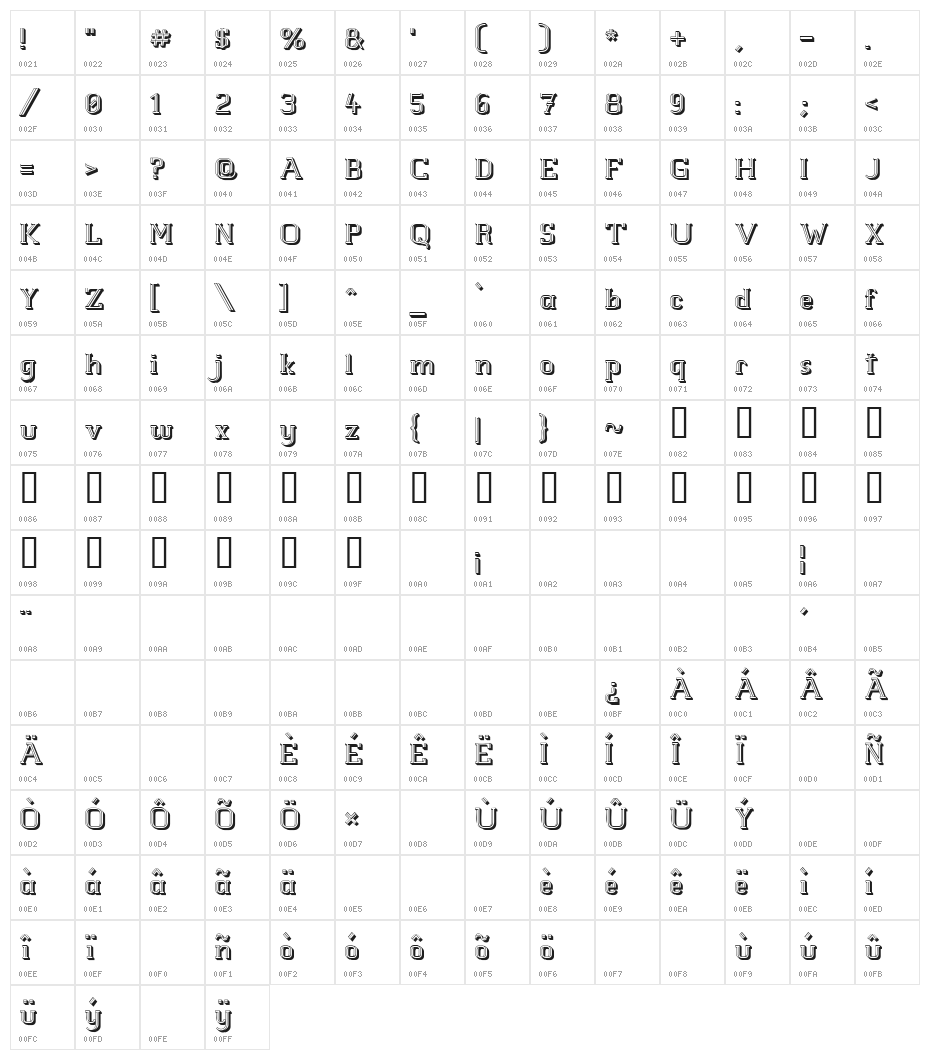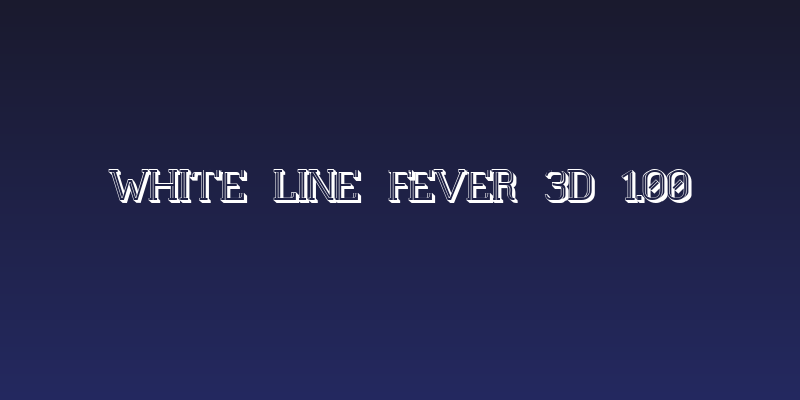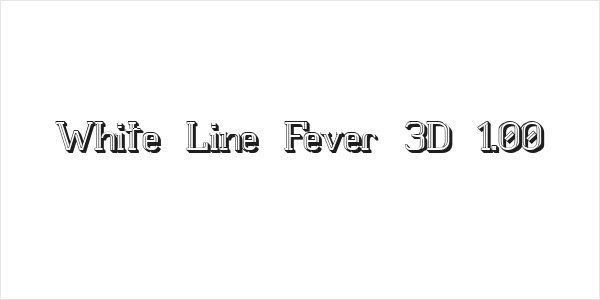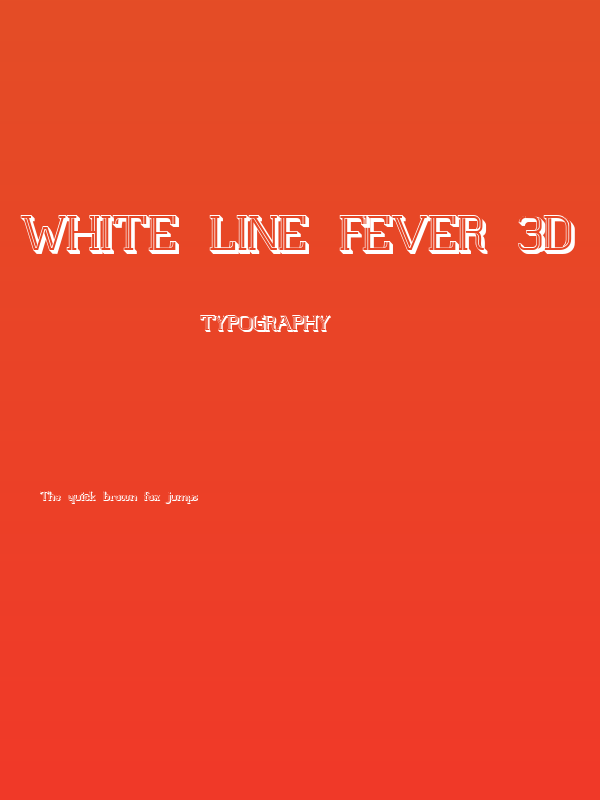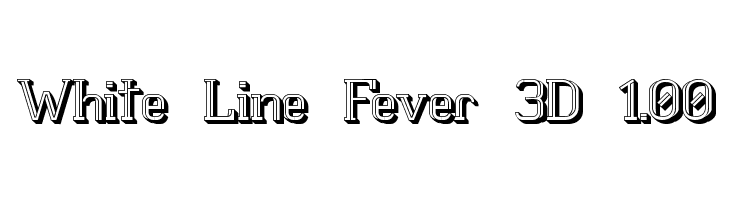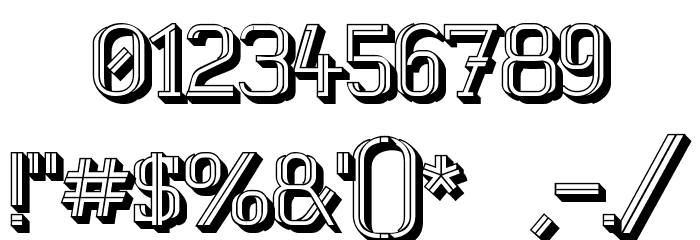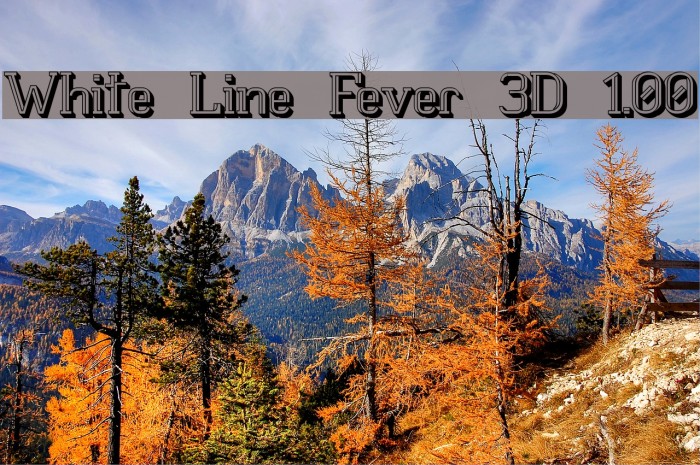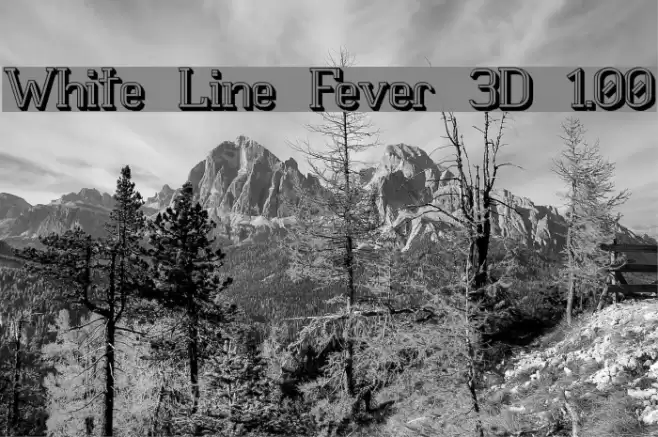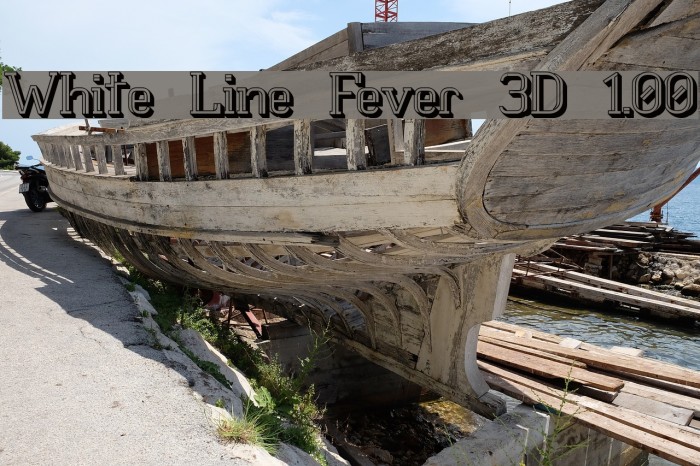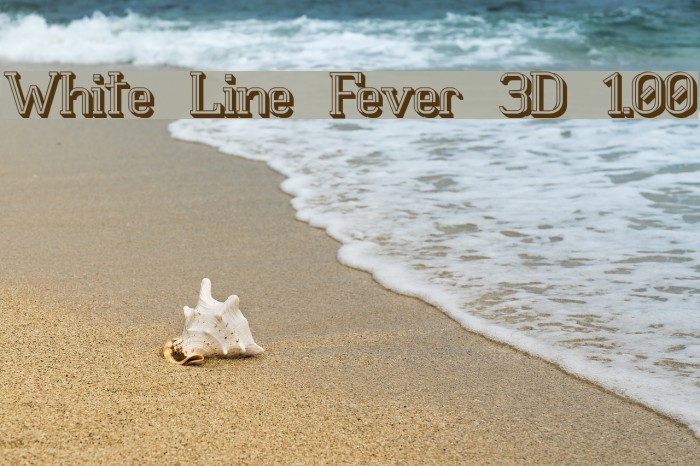
White Line Fever 3D 1.00 Font
White Line Fever 3D 1.00 Description
This font features a bold, three-dimensional design with a distinct shadow effect that gives it a striking and dynamic appearance. The uppercase and lowercase letters are crafted with a strong, geometric structure, while the numbers and special characters maintain the same bold style. The font's design incorporates clean lines and sharp angles, making it highly legible and visually impactful. The shadow effect adds depth, making it suitable for eye-catching headlines and titles. Its modern and decorative style is ideal for projects that require a bold statement.
| Overall Style | Modern, Decorative |
| Proposed Projects | Ideal for posters, logos, headlines, and any design requiring a bold, eye-catching font. |